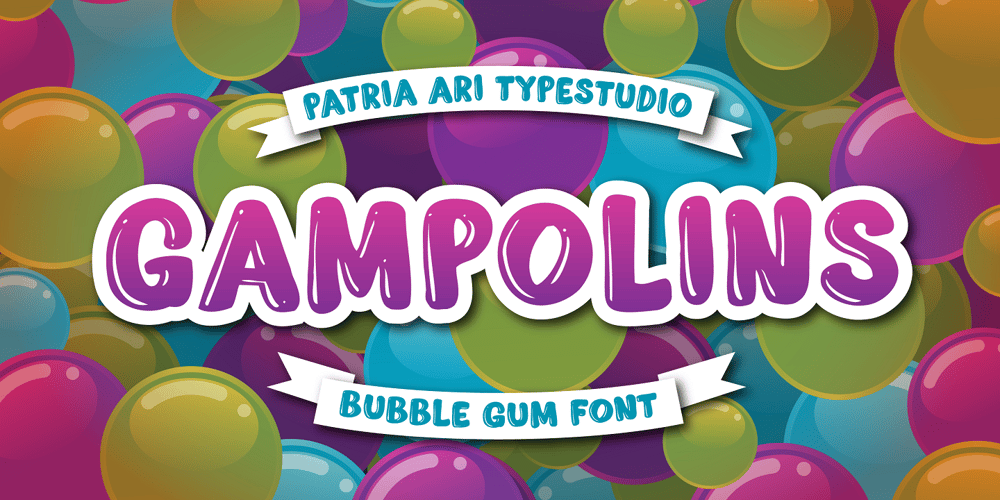
Gampolins
Gampolins font
Gampolins Font Family was designed by Patria Ari Wijonarko and published by Patria Ari. Gampolins contains 1 styles and family package options. Inspired from bubble gum shapes, Gampolins come with playful bubble shapes in a fun way.